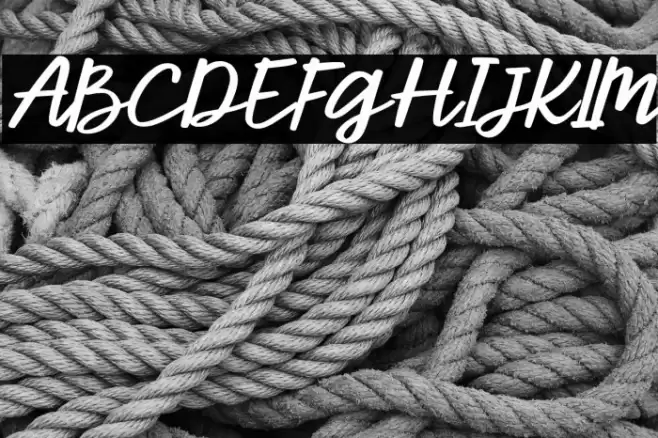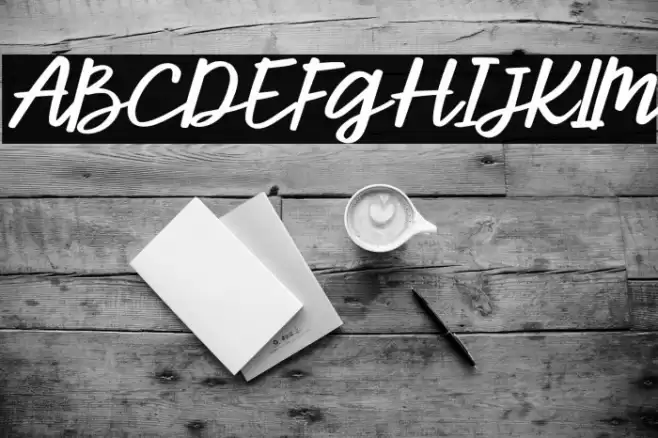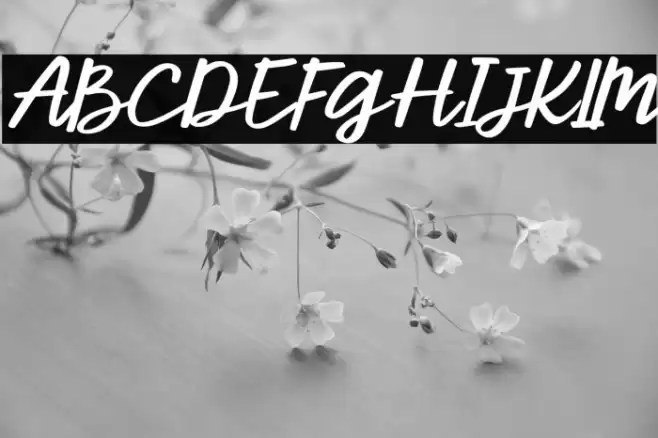
ParcelyFree-Italic Font
ParcelyFree-Italic Description
This font features a dynamic and fluid script style, characterized by its smooth, flowing lines and elegant curves. The letters are connected in a cursive manner, giving it a handwritten appearance that exudes a sense of personal touch and creativity. The uppercase letters maintain a consistent height, while the lowercase letters are slightly more varied, adding to the font's charm. The overall look is both stylish and approachable, making it suitable for a variety of design projects that require a personal or artistic flair.
A fluid and elegant script font with a handwritten style from Uncategorized fonts.
- Font: ParcelyFree-Italic
- Proposed Projects: Ideal for wedding invitations, greeting cards, personal branding, and creative projects that require a touch of elegance and personality.
- Use Case: Logos, Invitations, Personal Branding